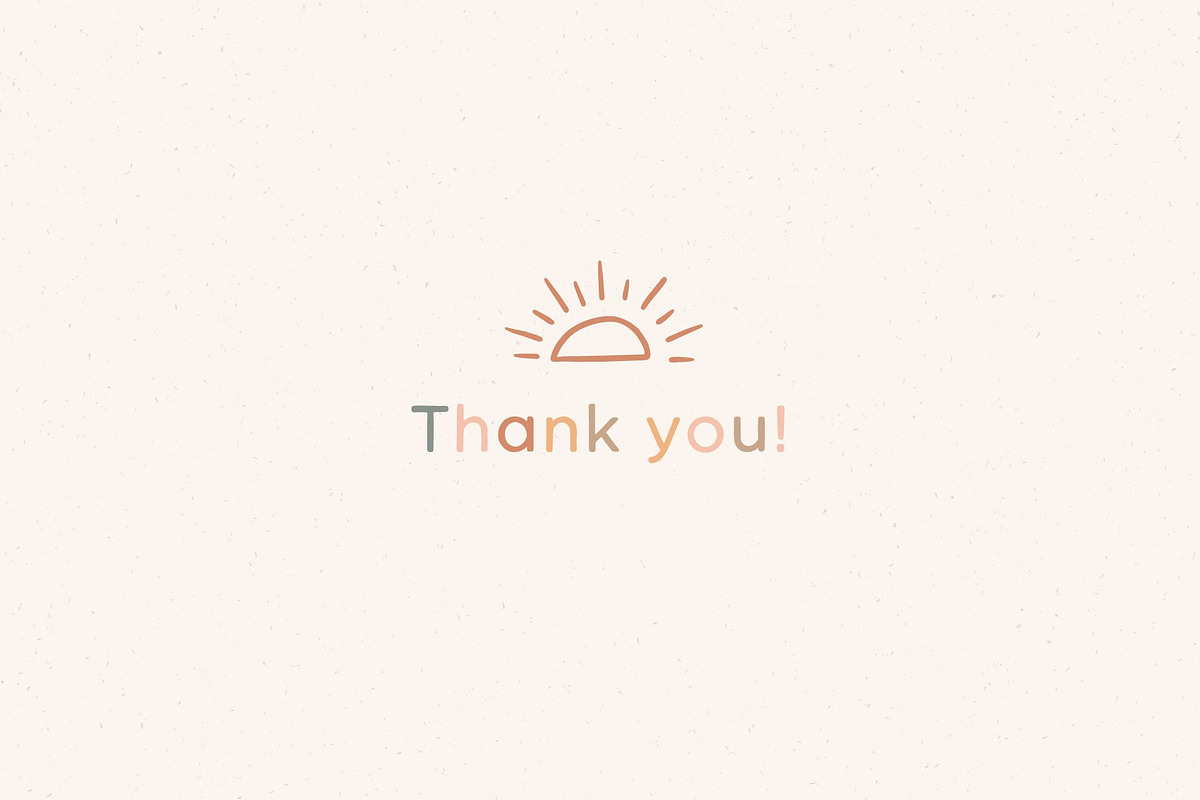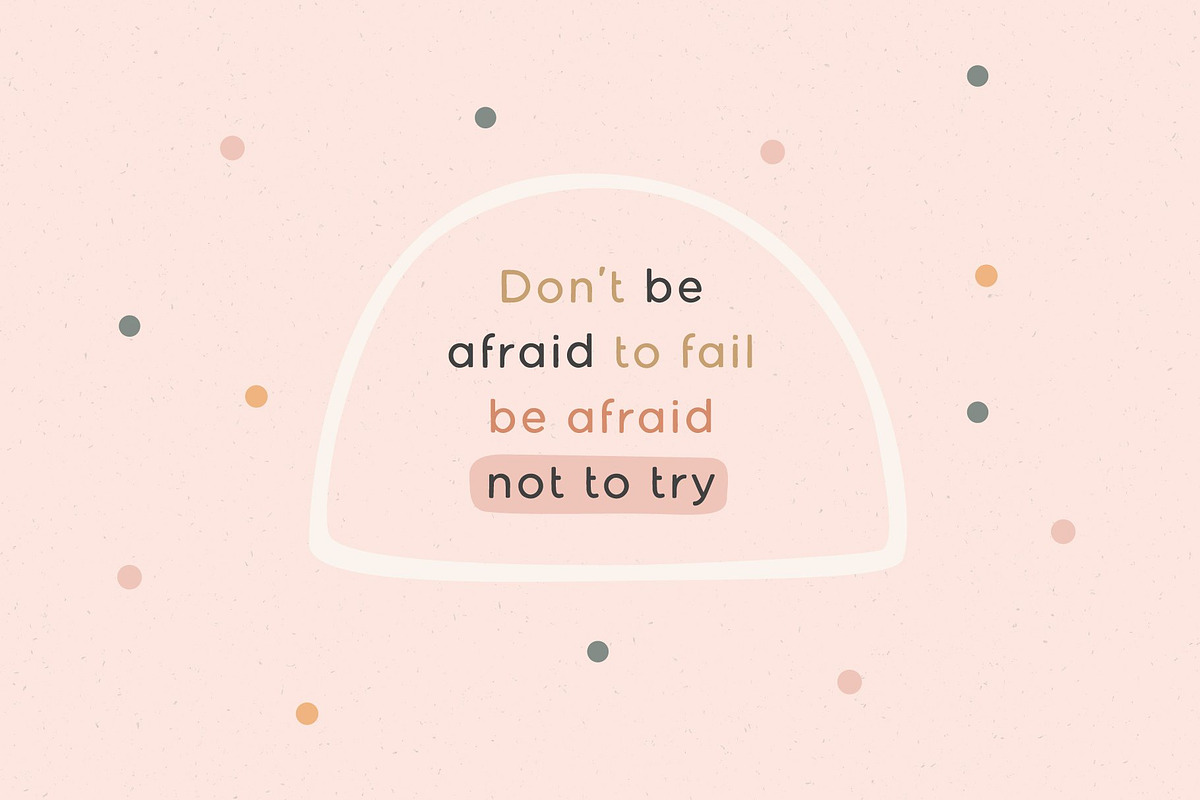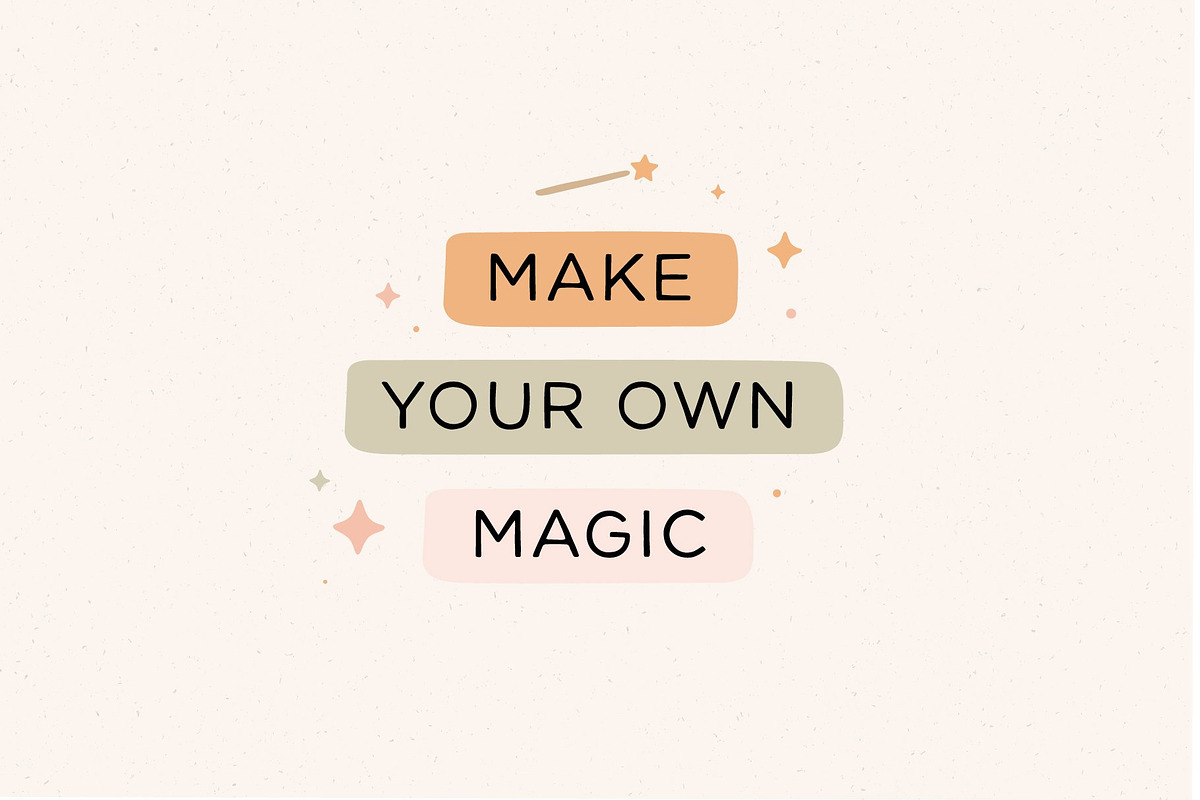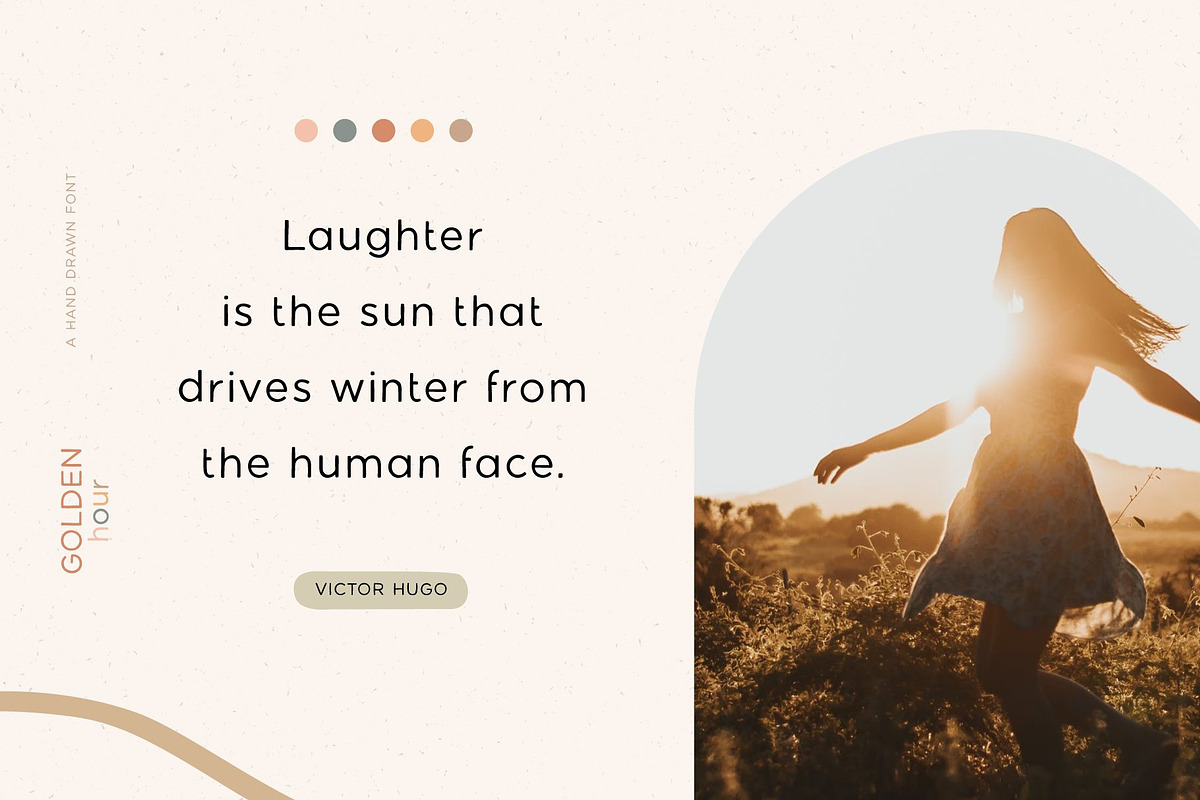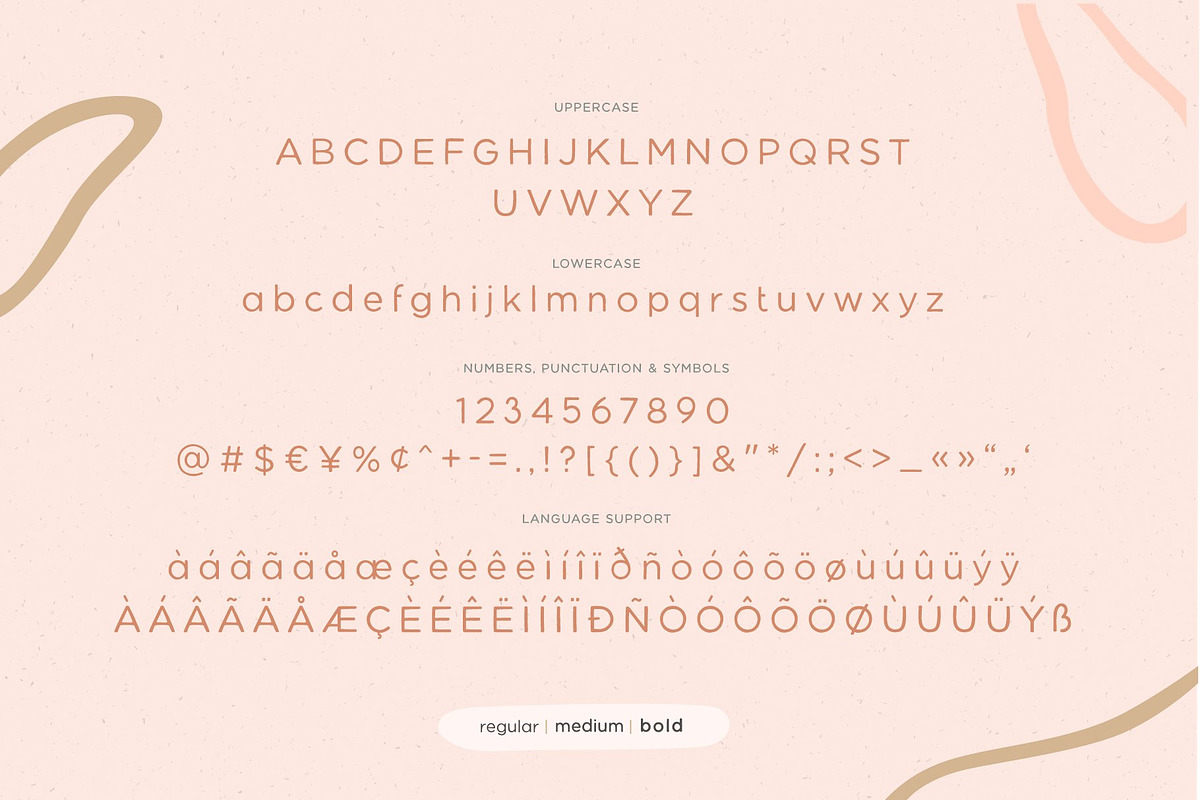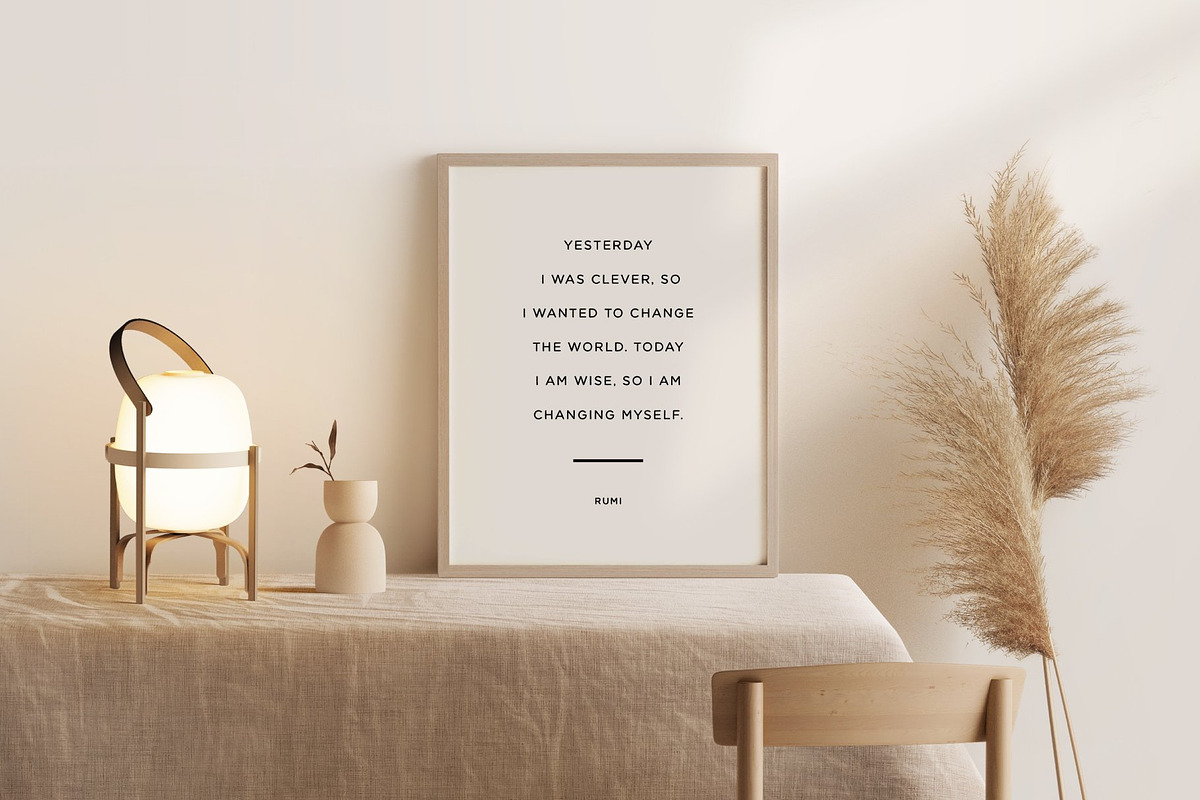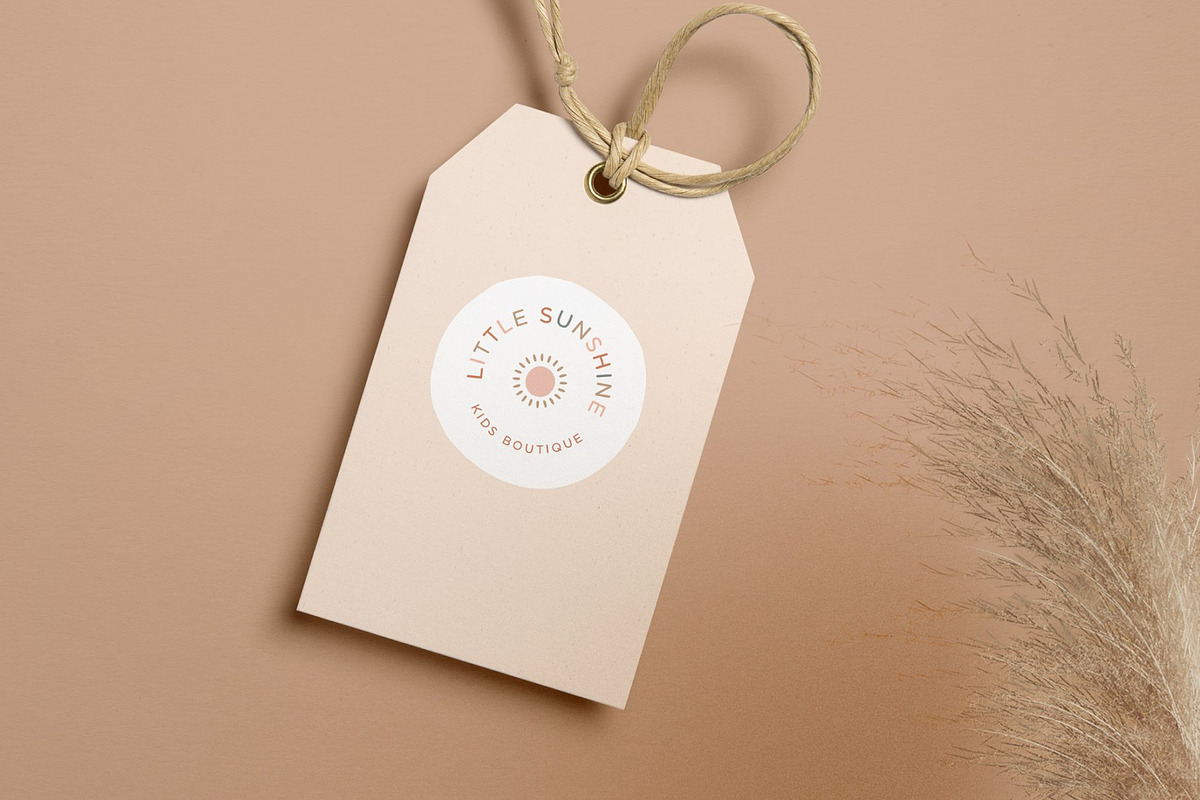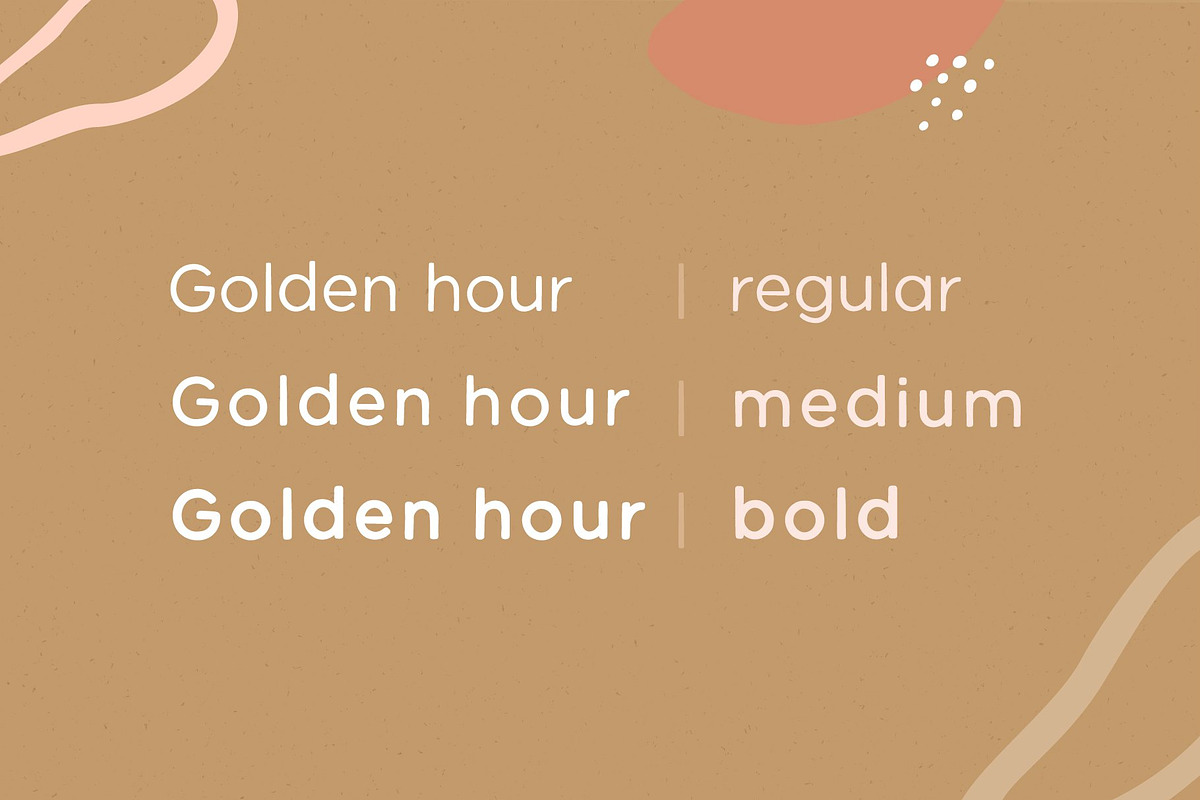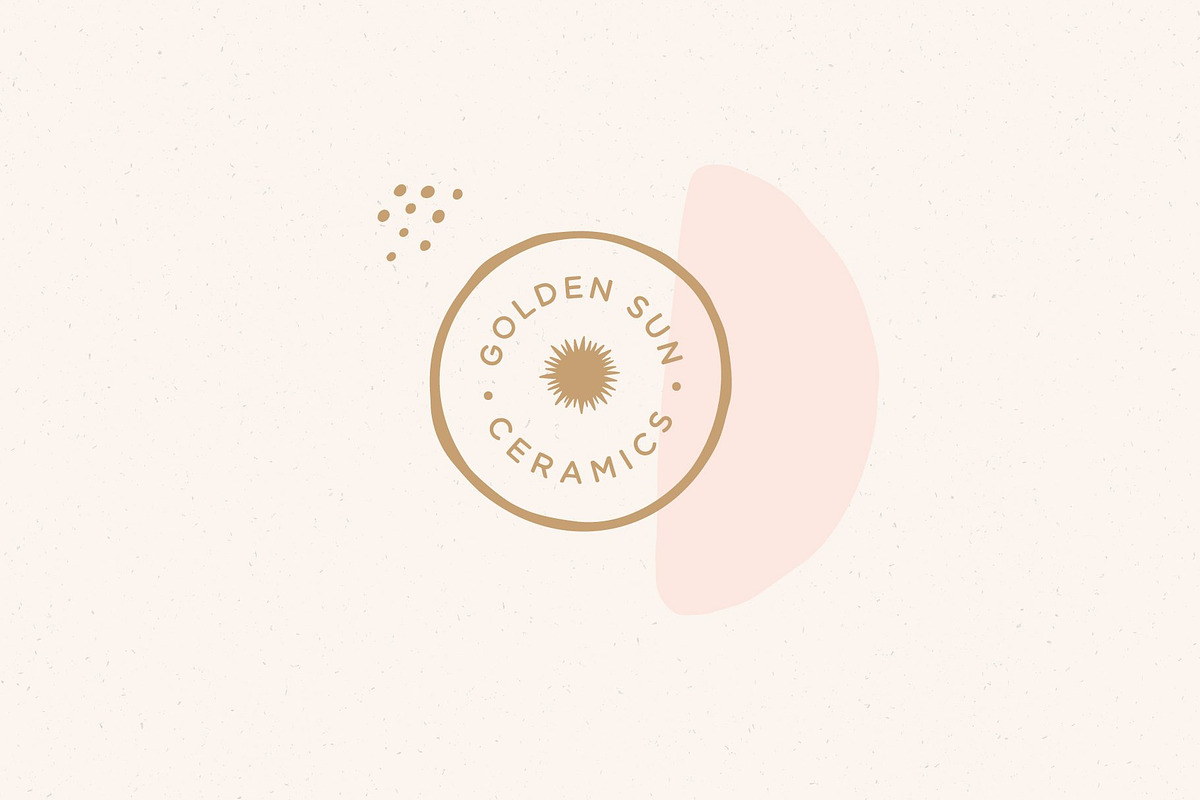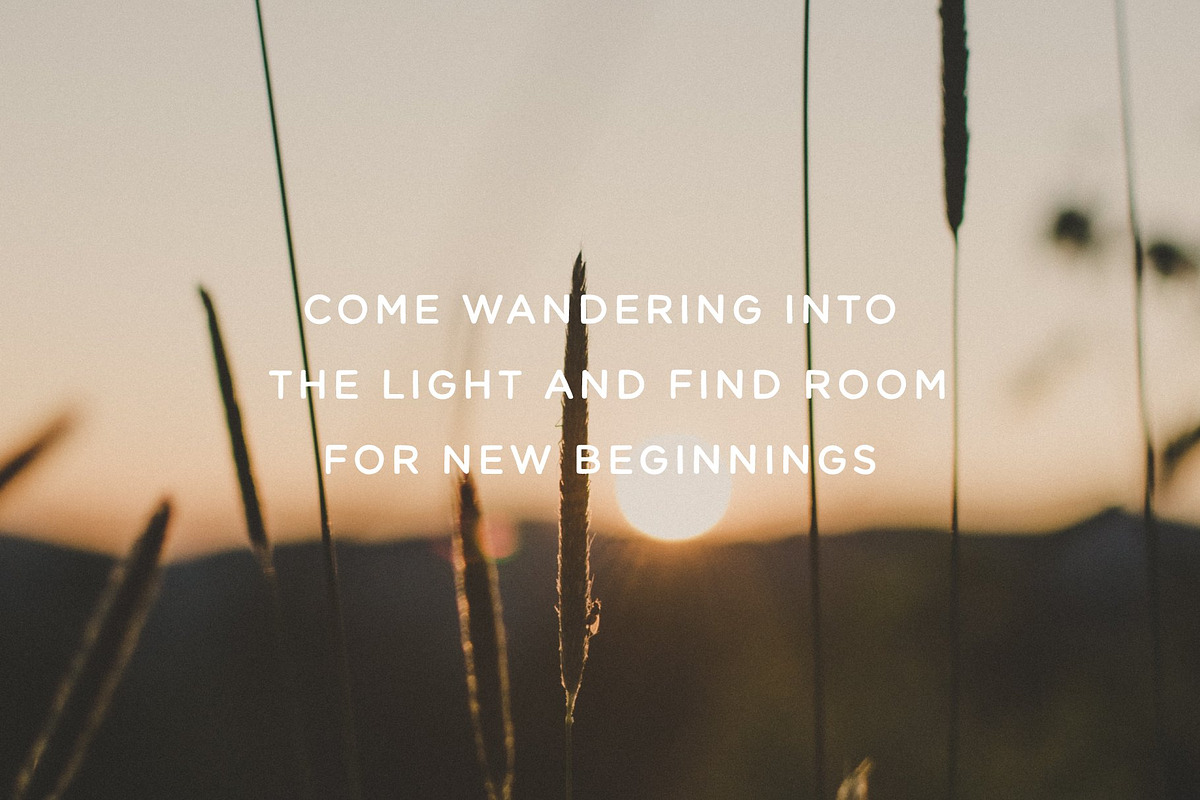
Golden hour | A hand drawn font
Golden hour will be perfect for books, greeting cards, logos, posters or anything that requires a fun and happiness look!